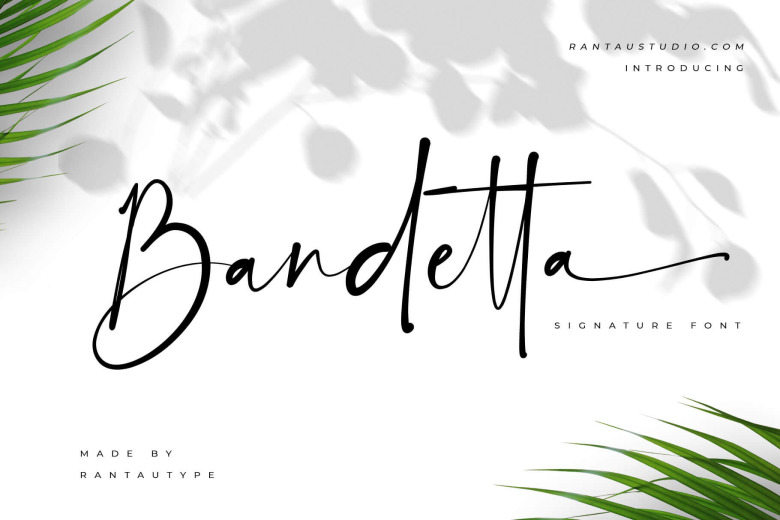
Bandetta Font
Proudly present Stylish signature font “Bandetta”. Bandetta handwritten signature script font is style curve which can be interpreted professional. we keep this font looks modern, readable, stylish, catchy and easy to use.
Bandetta is the great choice for watermark on photography, signature or signature logo design, quotes, album cover, magazine, business card and many other design project. Bandetta here to make your work to high level!!!
Bandetta Signature Script Font